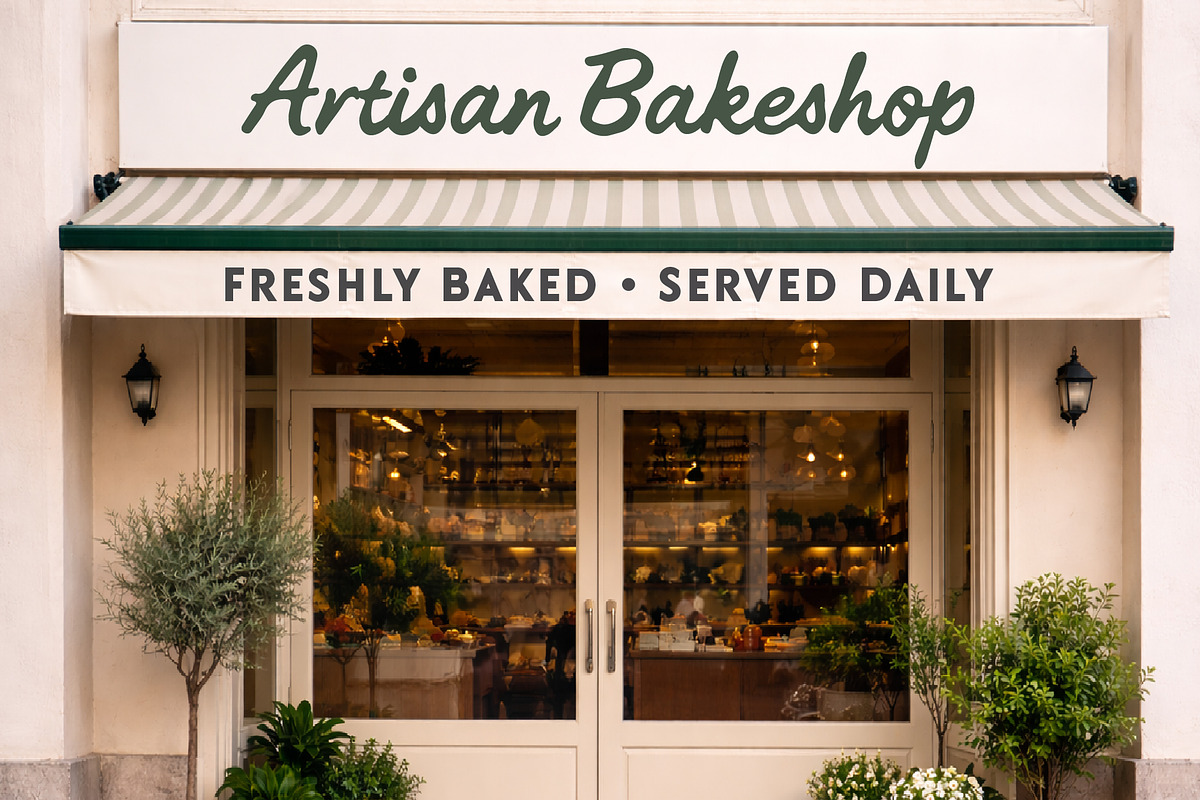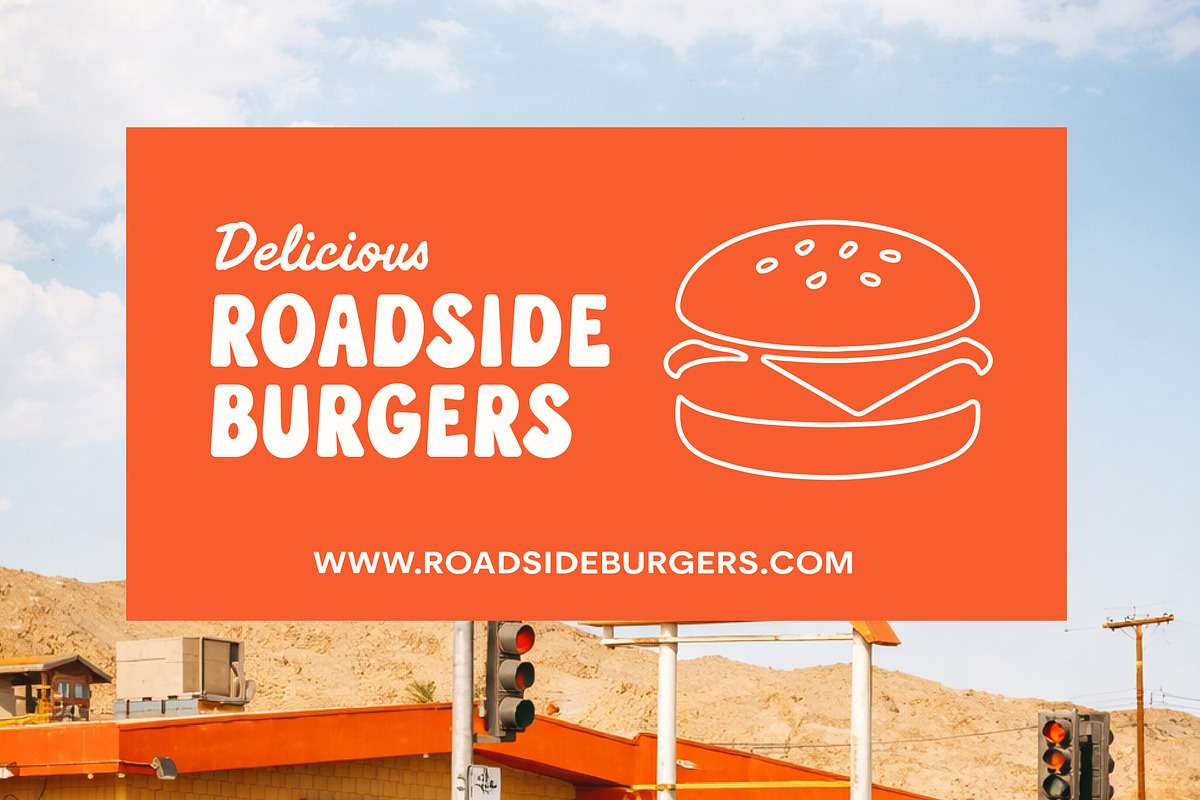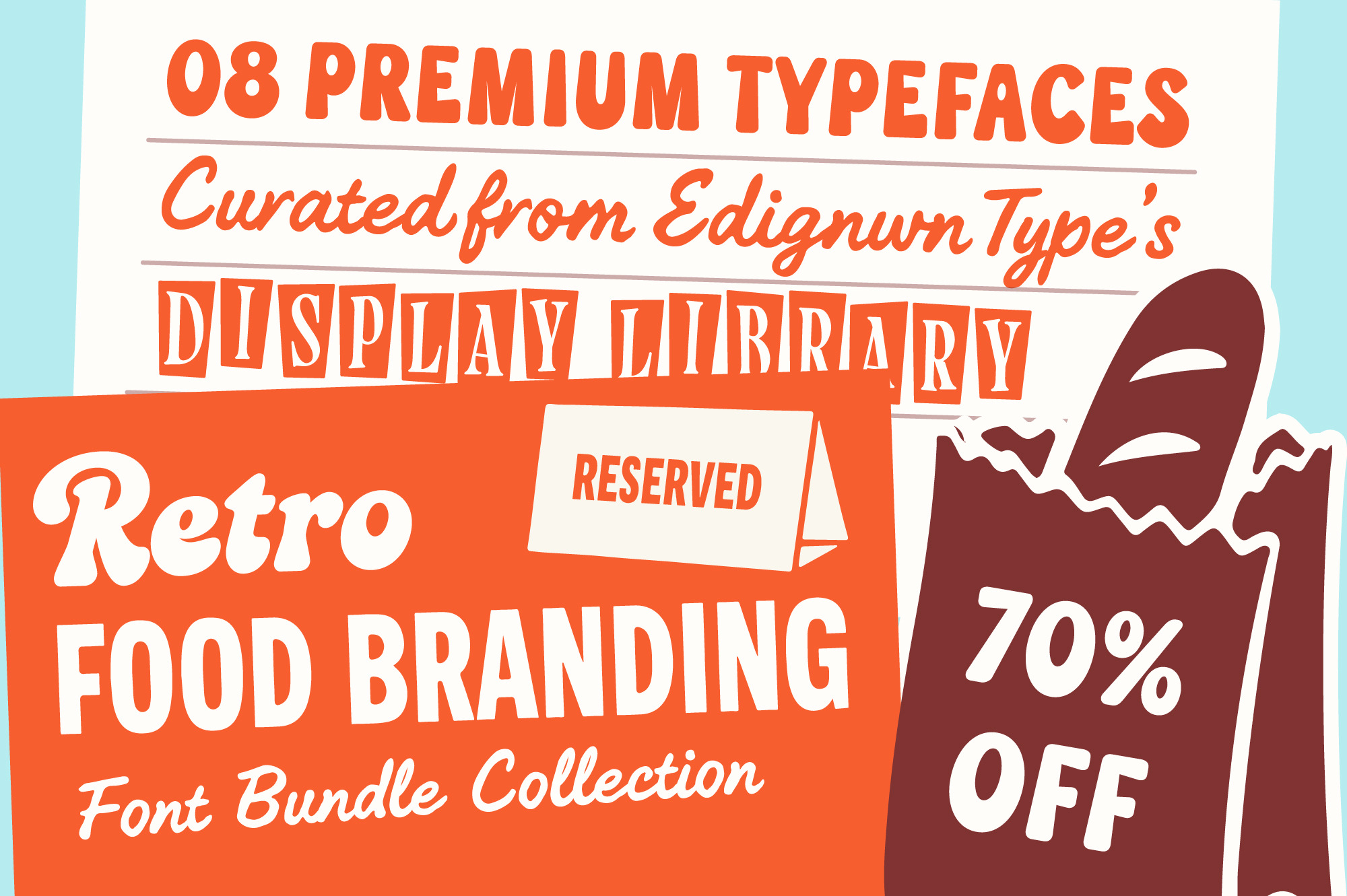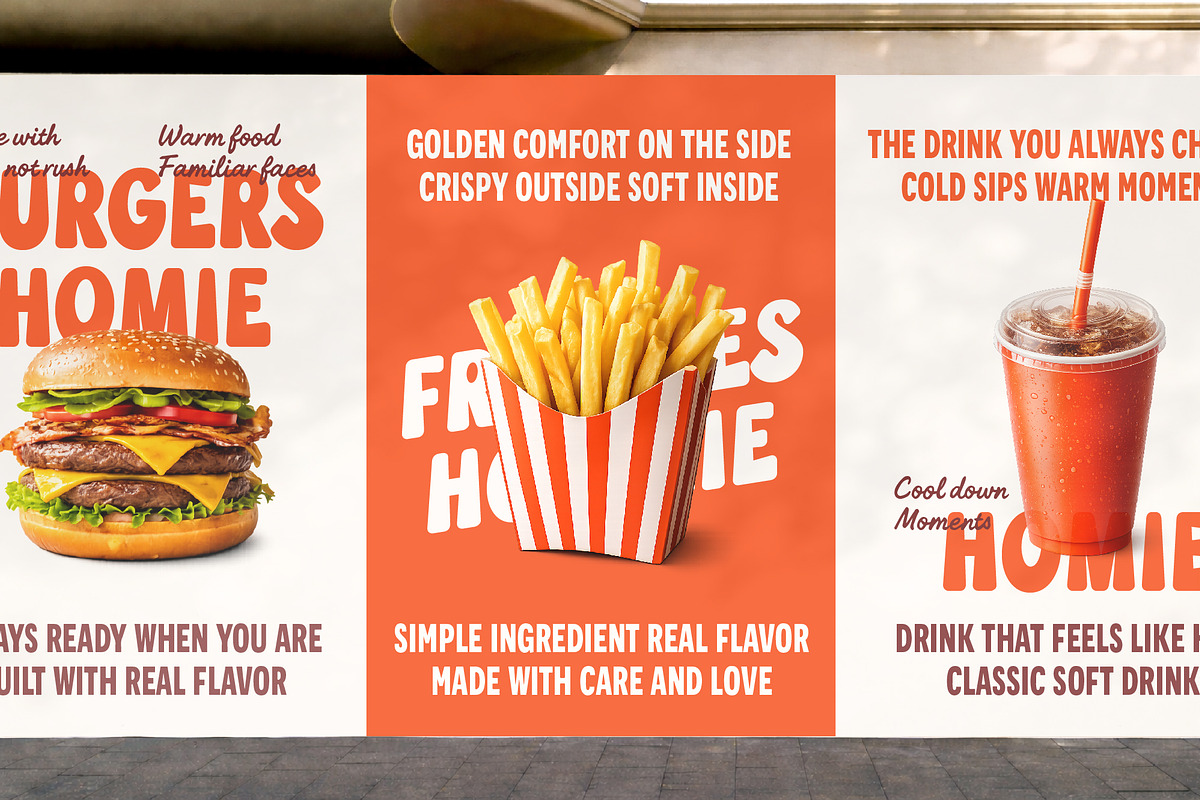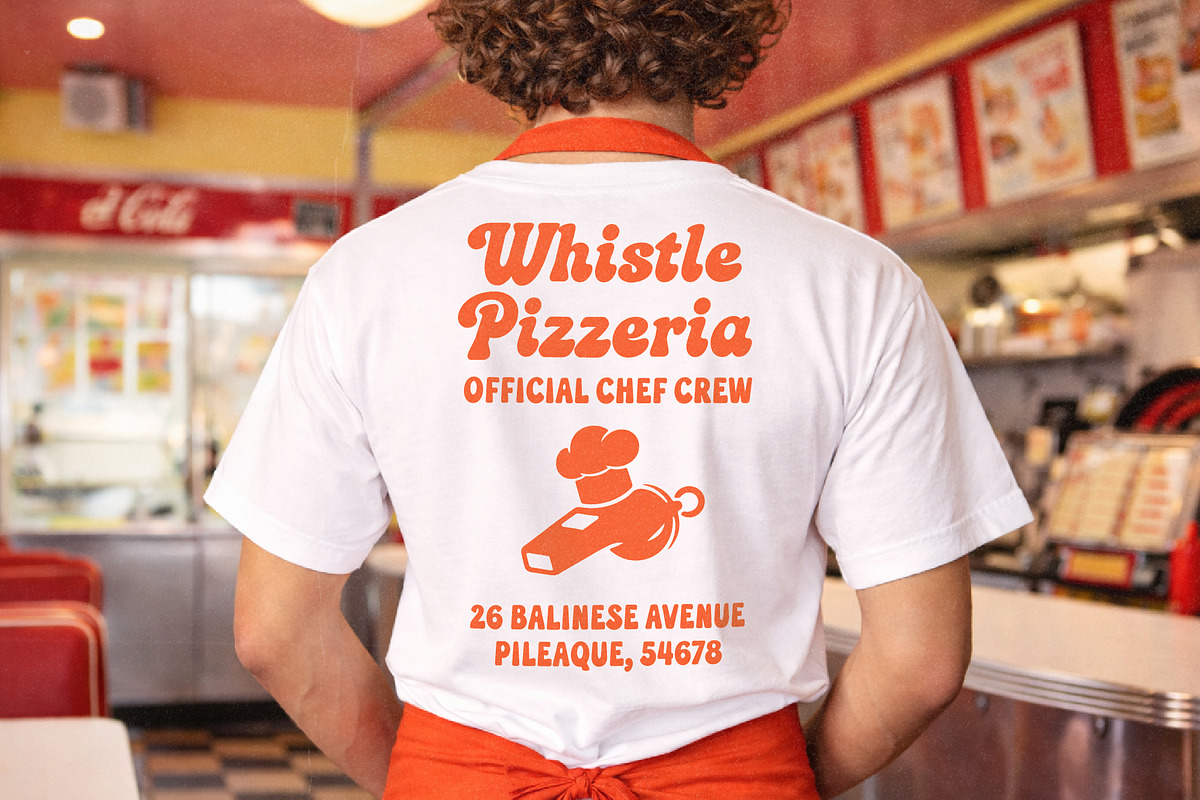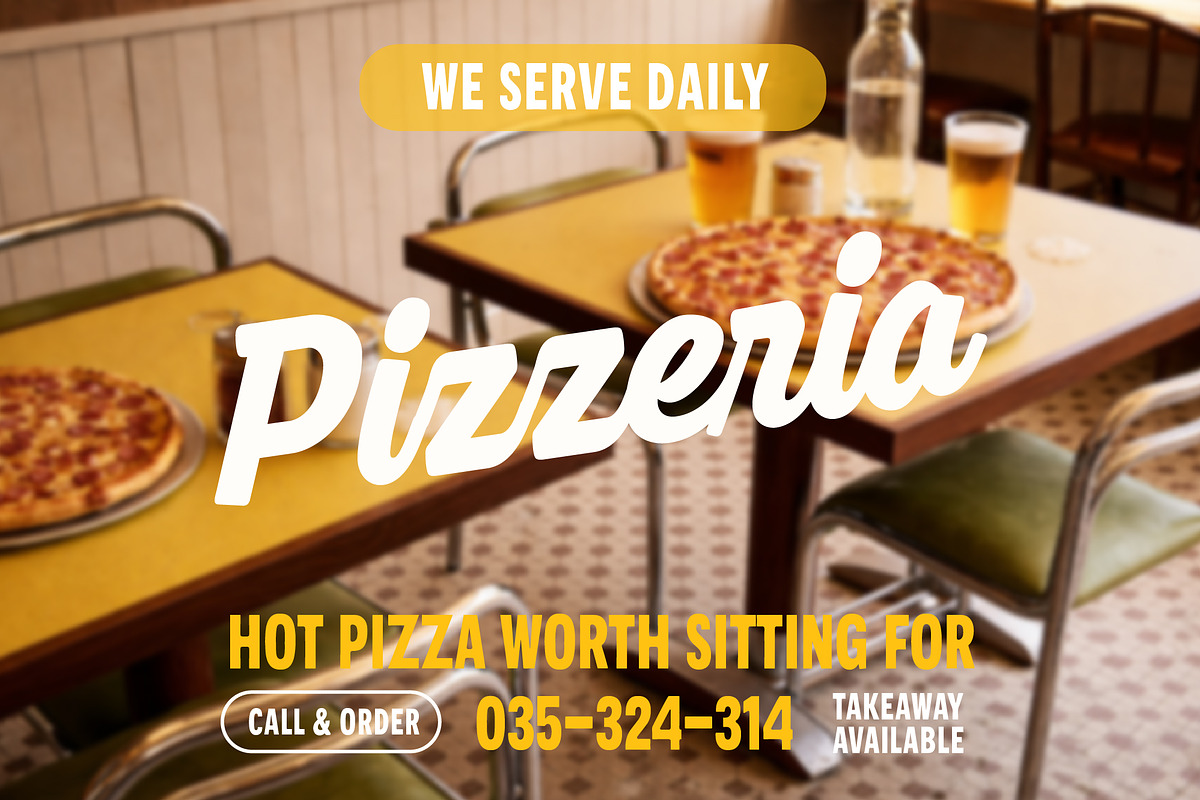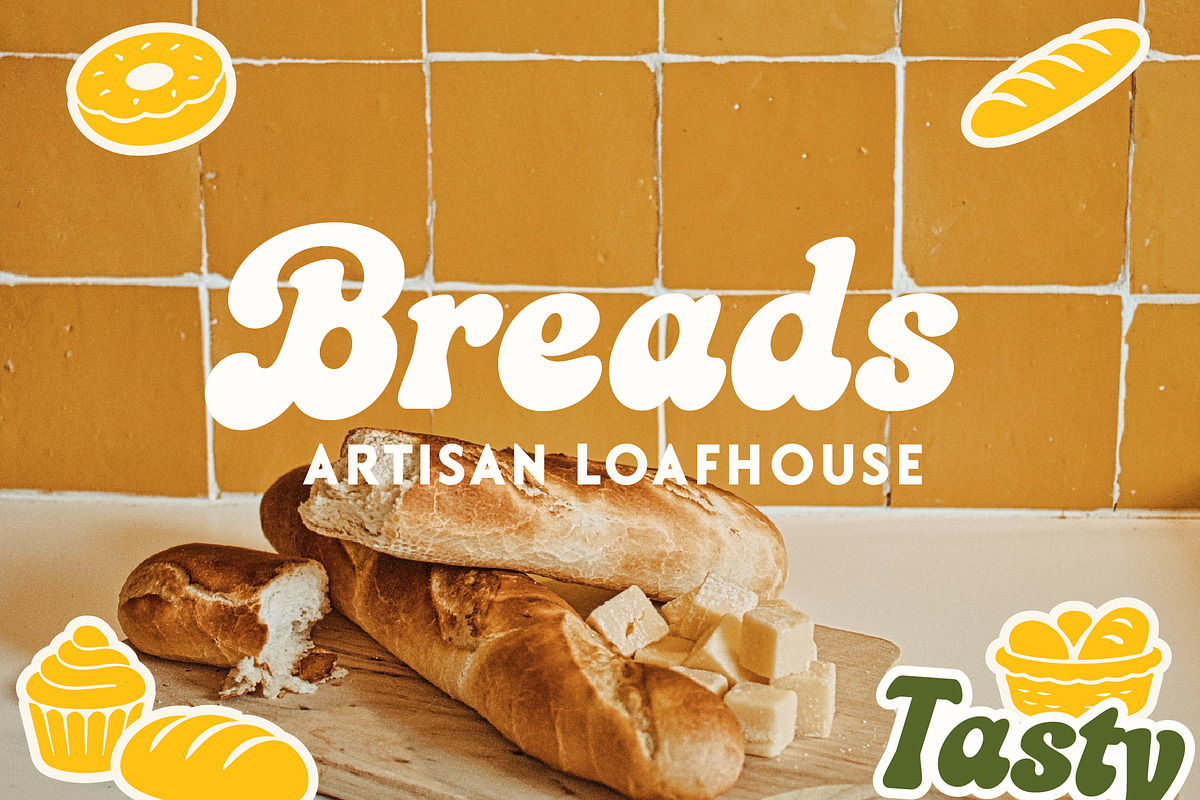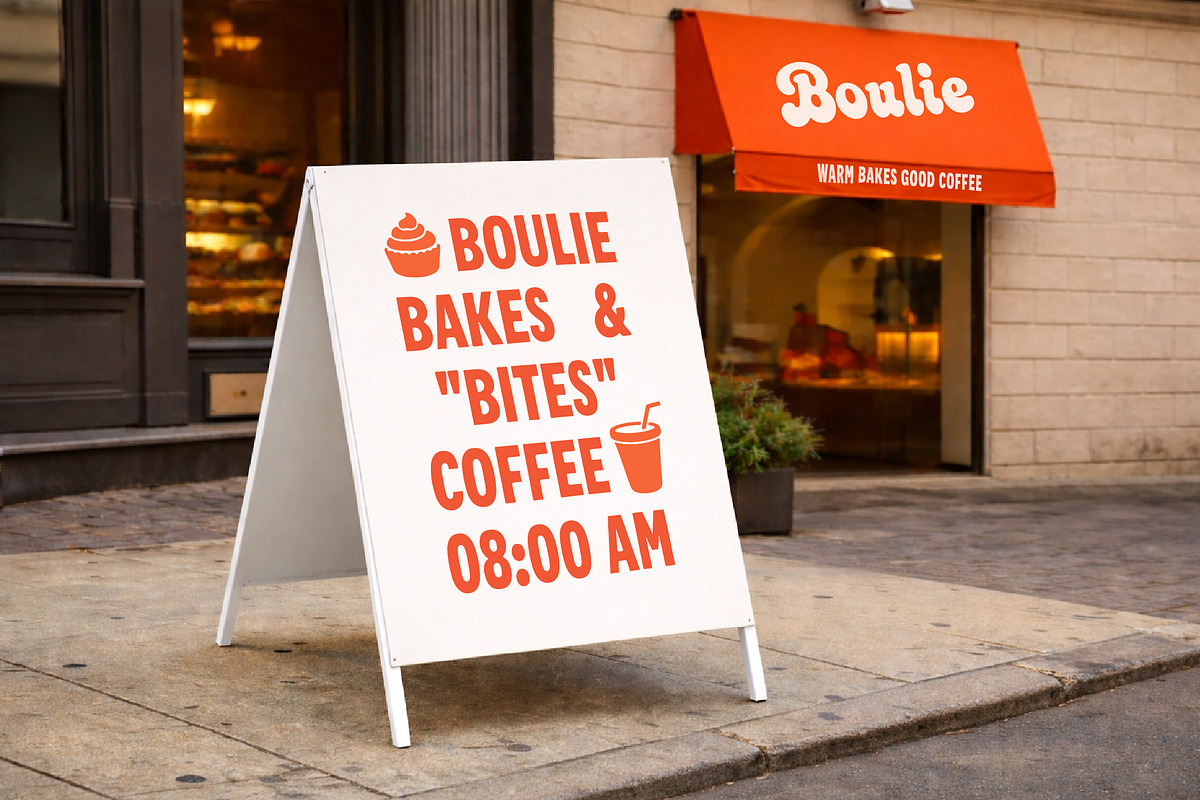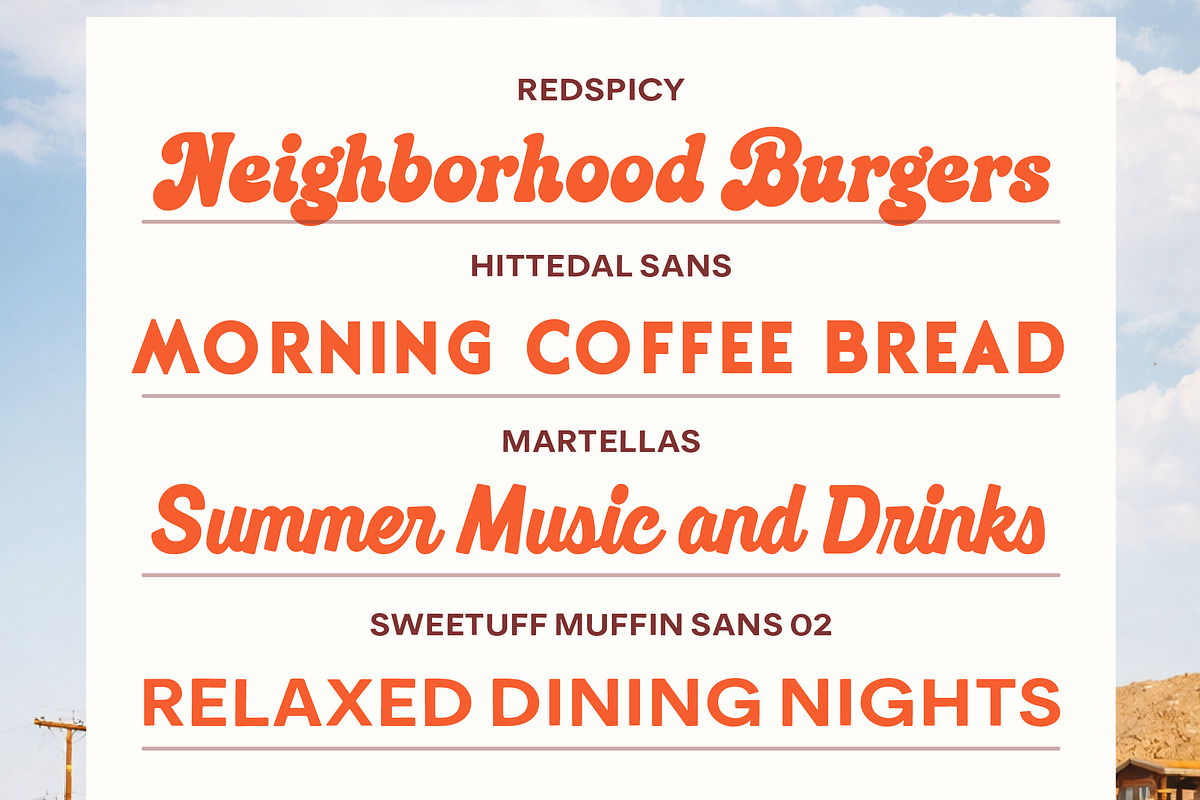
Retro Food Branding - Font Bundle
Retro Food Branding Font Bundle is a premium, hand-curated collection of expressive display typefaces built to elevate retro food branding at a professional level. Created for visual branding designers who want bold character, nostalgic warmth, and instant visual appetite, this bundle is made to power standout identities for restaurants, cafés, bakeries, food packaging, menus, signage, and apparel—without searching across multiple font families.
Carefully selected from Edignwn Type’s display library, this bundle combines expressive scripts, chunky serifs, and friendly sans styles that capture the charm of homemade comfort food and food culture. Each typeface brings its own personality while staying cohesive as a complete branding system.
This bundle includes 8 premium typefaces:
- Redspicy
- Redspicy Caps
- Sweetuff Muffin Script
- Sweetuff Muffin Sans 01
- Sweetuff Muffin Sans 02
- Signs Painted Serif
- Hittedal Sans
- Martellas
- 8 curated display typefaces
- Mix of script, serif, and sans styles
- Some fonts include uppercase, lowercase, alternates, ligatures, symbols, and punctuation
- Some fonts include all-caps, numerals, symbols, and punctuation
Whether you’re building a full restaurant identity or adding a retro touch to food-focused branding, Retro Food Branding Font Bundle gives you a versatile, high-impact typographic toolkit with timeless vintage taste—now available at a special bundle price.